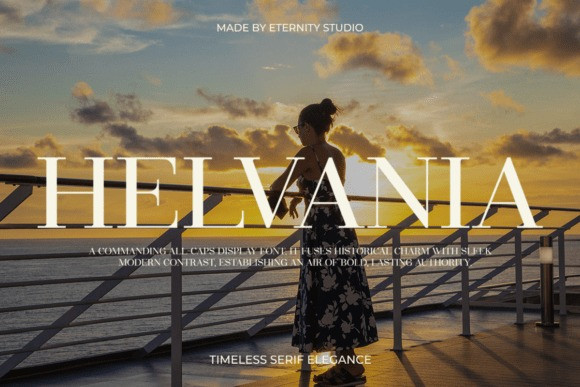
Helvania Font
Helvania Font is a refined serif typeface crafted to embody timeless beauty and effortless sophistication. Featuring classic letterforms with modern, elegant detailing, this font delivers a graceful balance between tradition and contemporary style. Each character is designed with smooth curves, sharp serifs, and harmonious proportions, making Helvania a truly versatile typeface for high-end design work.
Perfect for luxury branding, editorial layouts, packaging, wedding stationery, logos, book titles, and social media visuals — Helvania brings a polished, premium look to any project. Its excellent readability and stylish personality make it ideal for both large headlines and refined body text.
Whether you’re building a brand identity, designing a magazine, or elevating your creative presence, ET Helvania offers the timeless elegance your work deserves.